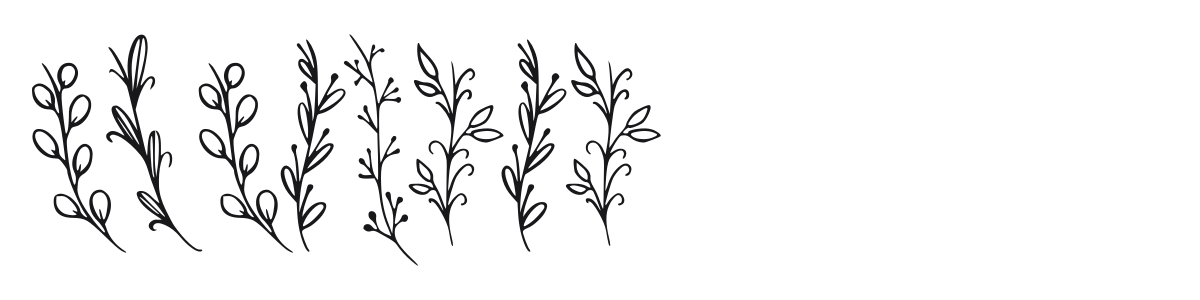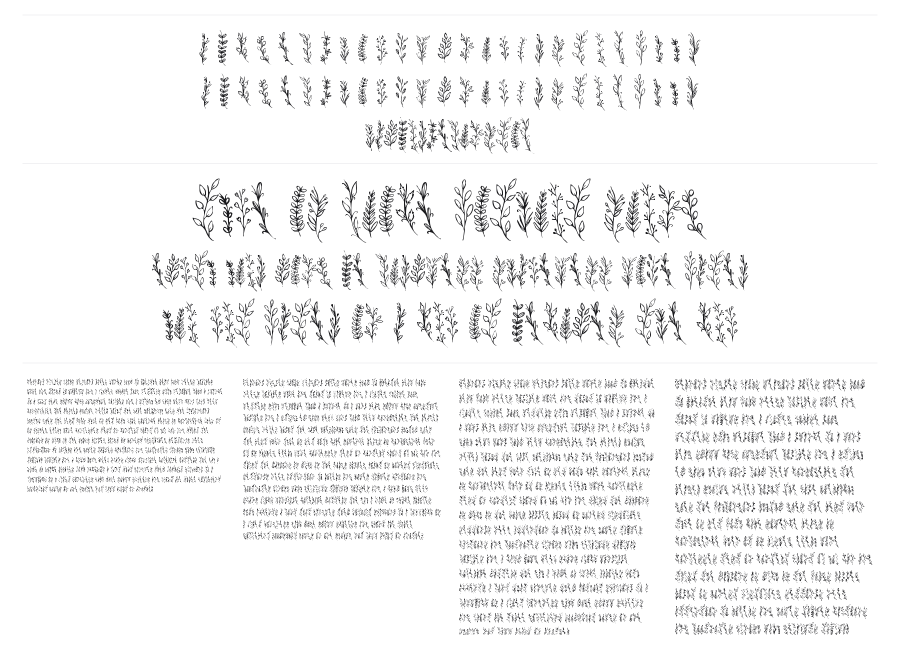
Dedaunan
Dedaunan is a botanical dingbat font made up of hand-drawn sprigs, branches, and leafy stems. Each character is a distinct plant illustration with thin, sketchy linework that feels like it was pulled from a nature sketchbook. It works well as decorative filler, framing elements, or accents in layouts that need an organic, handcrafted touch.